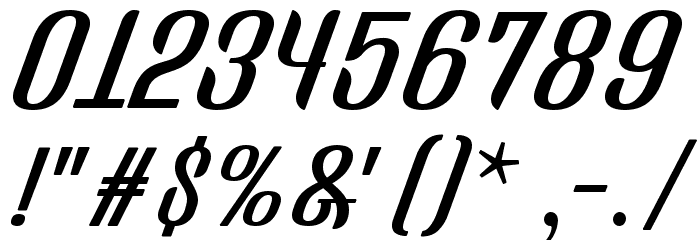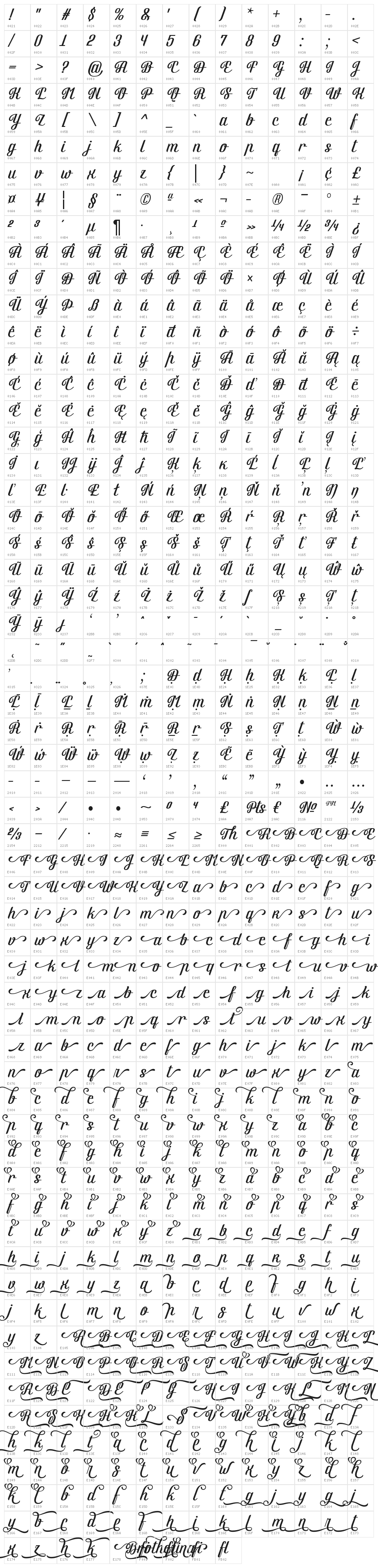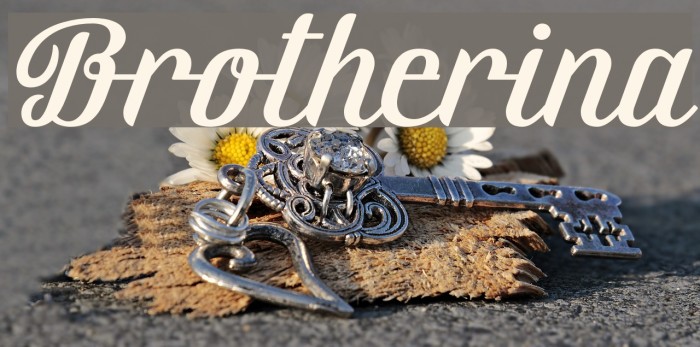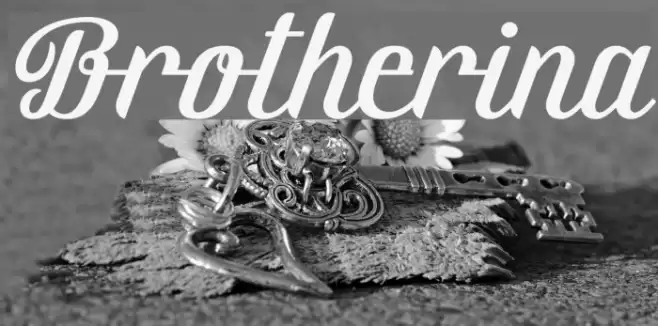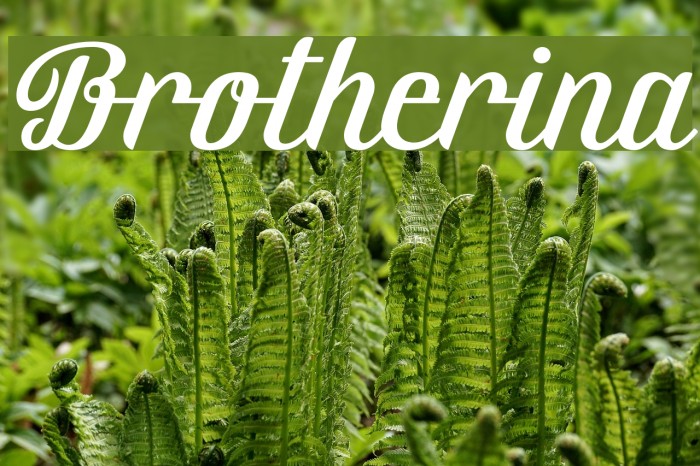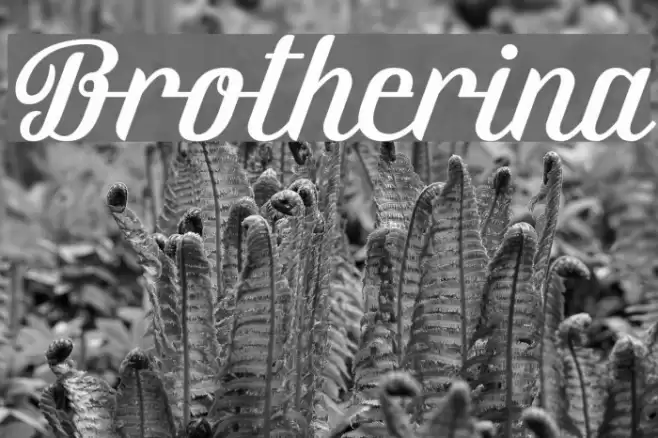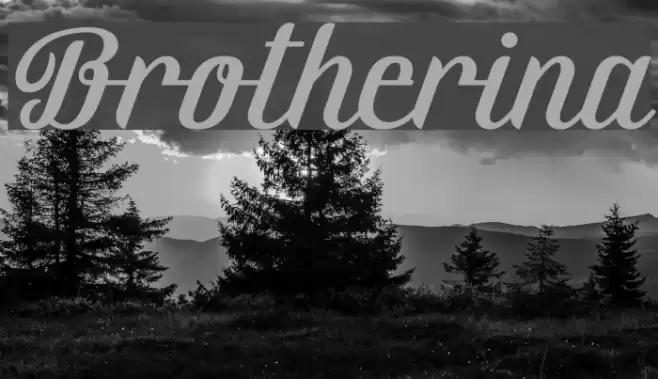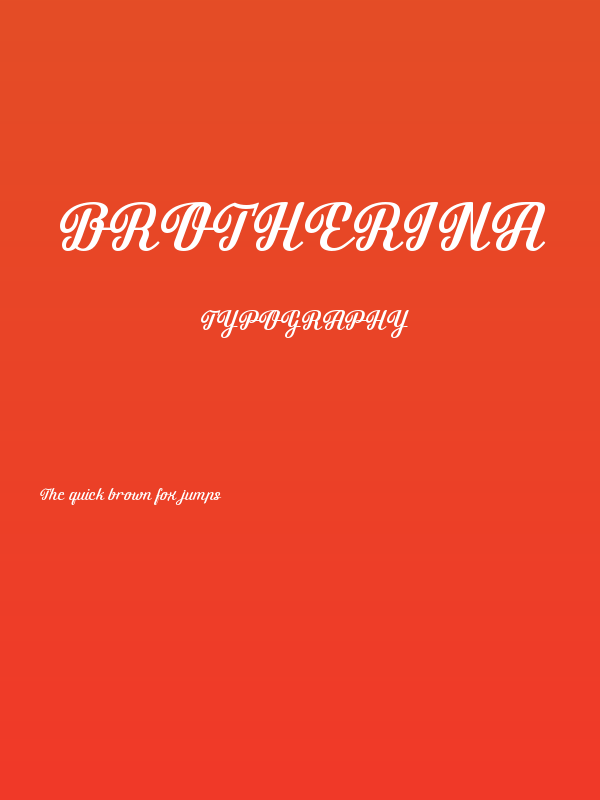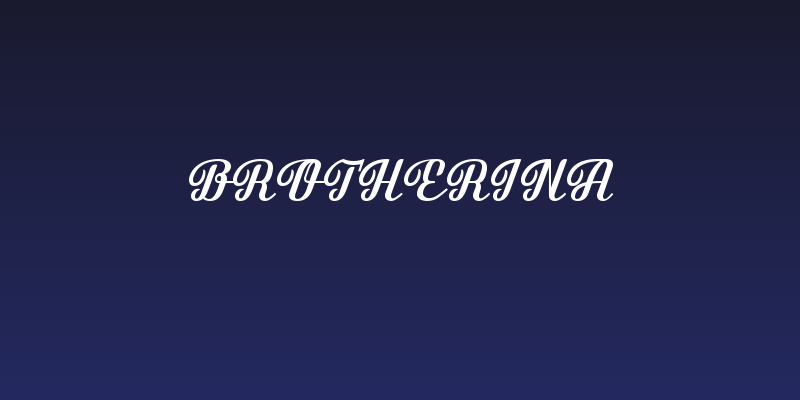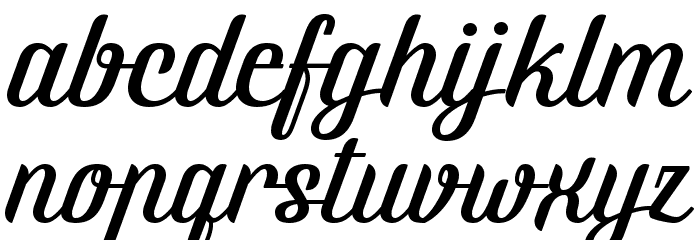
Brotherina Font
Brotherina Description
This font exudes a classic and elegant script style, characterized by its flowing, cursive letterforms. The uppercase letters are bold and slightly slanted, creating a sense of movement and sophistication. The lowercase letters maintain a consistent rhythm, with smooth connections between each character. The numerals are distinct and maintain the same cursive style, ensuring readability while preserving the font's overall aesthetic. Special characters are seamlessly integrated, matching the elegant curves of the alphabet. This font is perfect for projects that require a touch of elegance and formality.
Overall StyleClassic
Use CaseLogos, Invitations, Headlines
Proposed ProjectsIdeal for wedding invitations, elegant branding, greeting cards, and formal event programs.